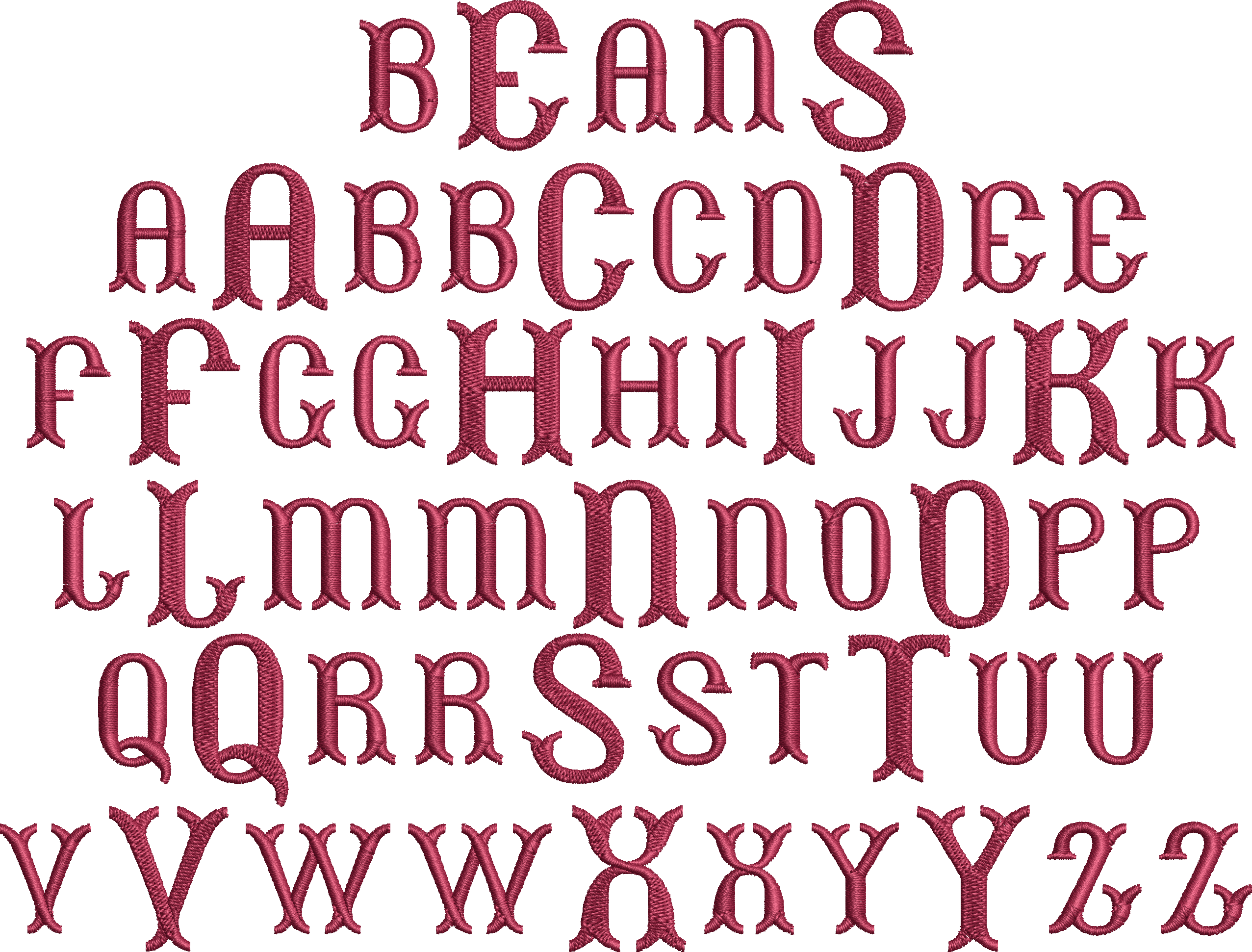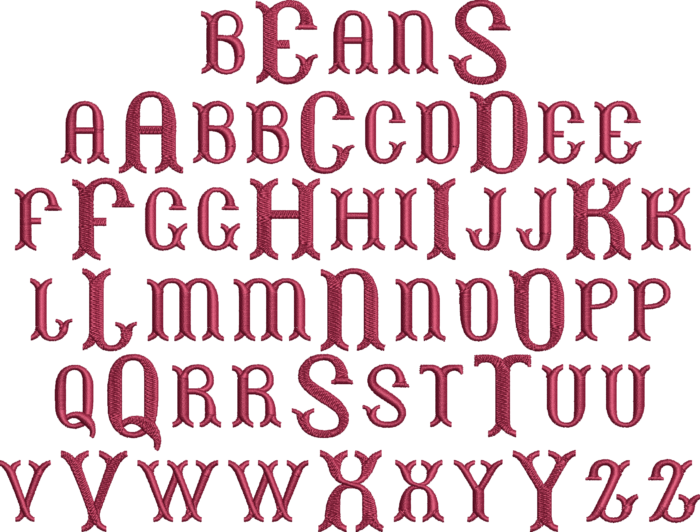
BX Embroidery Font: Beans 3-Ltr MGM
BX Embroidery Font: Beans Monogram is a serif, stylized, 3-letter monogram machine embroidery font that includes A-Z (left, right, center) (78 total characters) 6 sizes.
Each character in this alphabet is individually manually digitized; we do not use a TrueType to Stitches conversion utility to create our fonts. Additionally, stitch attributes such as stitch type, density, compensation, and underlay are optimized for each size available. Choose the size closest to what you need. Shrinking the smallest size is not recommended.